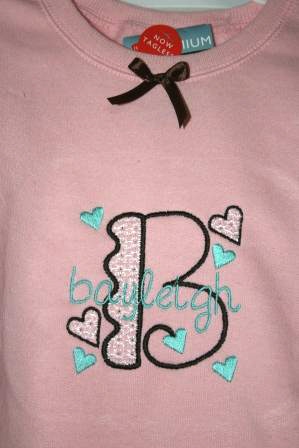
Lacy Girl - Monogram Font 39
This SWEET Girly Monogram set includes 26 lovely upper case letters with delicate lace fill and they measure just about 4 inches in height, along with 26 lower case letters that measure approximately 1 1/4 inches in height.  The sweet lace hearts and solid hearts are also included.  All designs fit the 4x4 hoop.